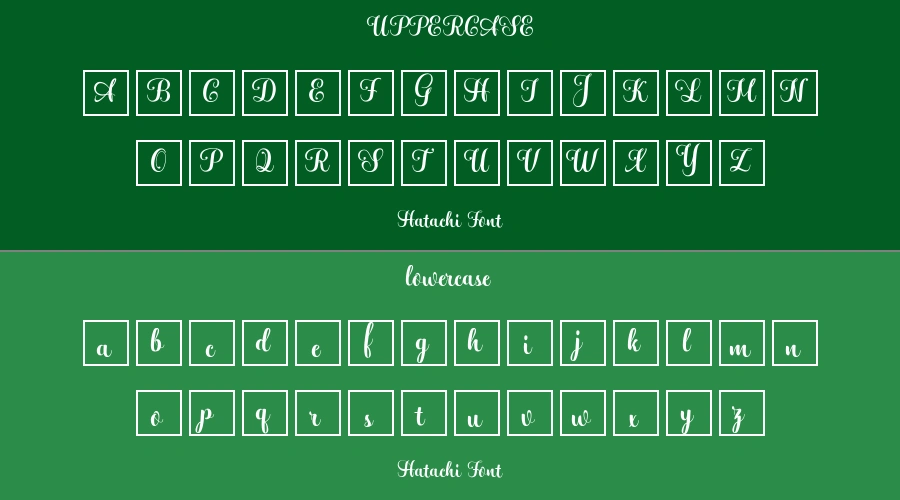
About Hatachi Font
Hatachi Font represents a sophisticated approach to type design, balancing humanist proportions with brand presence. Perfect for motion graphics, this font family showcases impressive versatility and technical merit throughout its character set. Designers appreciate its versatility and reliability.
Designers will appreciate nuanced touches including calligraphic influence and connecting forms, adding sophistication to any project. These features become apparent in research articles, where distance readability matters most. The careful treatment of corner treatment and scientific authority ensures optimal performance.